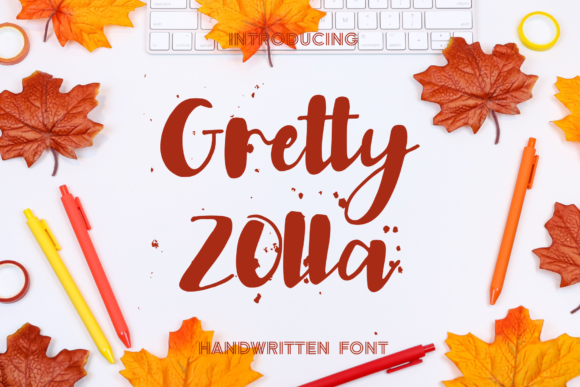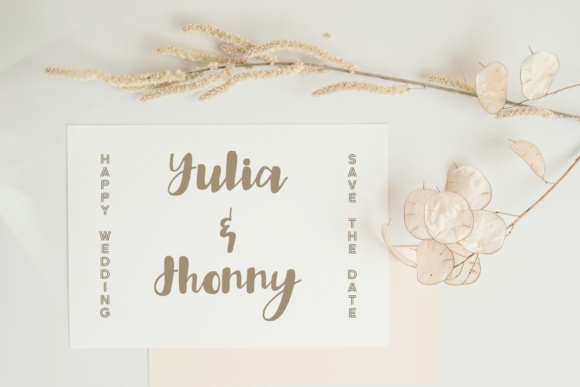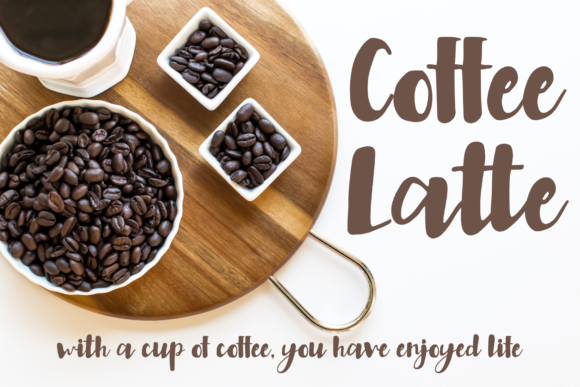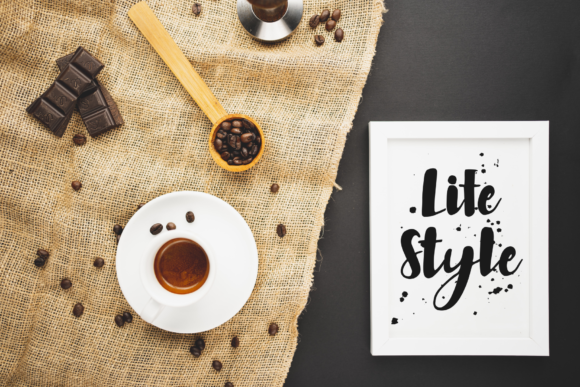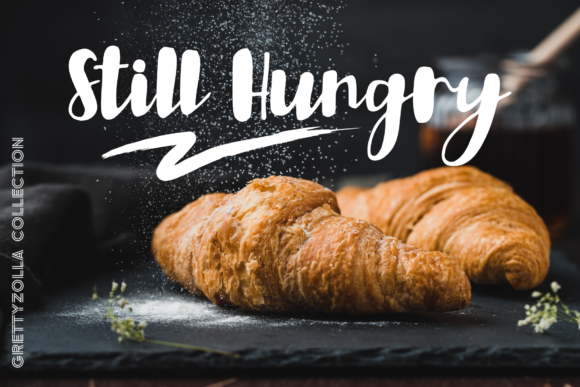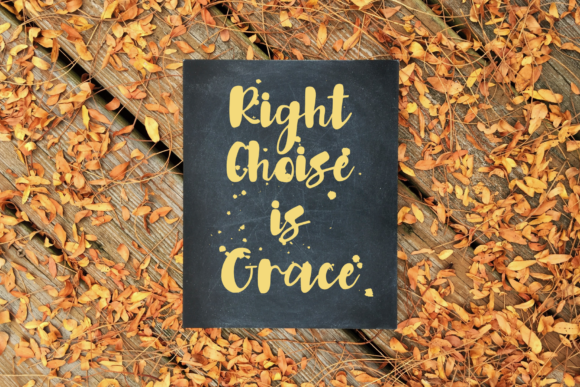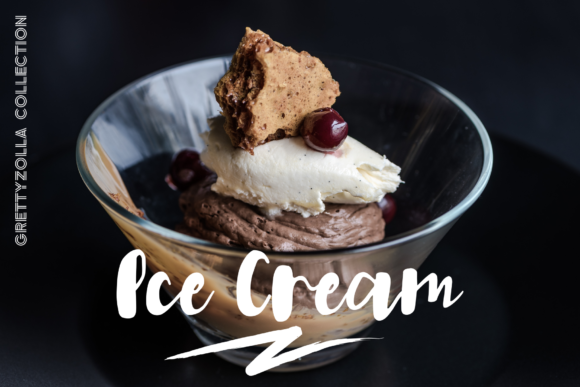
The Perfect Brushstroke for Your Next Creative Project
Have you ever been scrolling through Pinterest or Instagram and stumbled upon a beautiful handwritten design that just makes you want to create something amazing? That’s exactly what happened to me the other day when I came across a stunning wedding invitation that featured the gorgeous Gretty Zolla Font. The combination of elegance and playfulness in that single brushstroke had me hooked, and I knew I had to learn more about this incredible font.
As it turns out, Gretty Zolla Font is a trendy, chic, and adaptable handwritten font that’s perfect for adding a personal touch to any design. Whether you’re creating wedding invitations, thank you cards, or logos, this font is sure to elevate your project and make it truly special. For designers, Gretty Zolla Font is a valuable tool that offers endless creative possibilities and a unique style that’s hard to find elsewhere.
Gretty Zolla Font Key Features
- Font Family: Gretty Zolla Font is a unique script font designed to add a touch of elegance to any design. It is available in two font styles: Regular and Bold.
- Character Set: The font includes a wide range of characters, including uppercase and lowercase letters, numbers, and punctuation marks, making it suitable for various design applications.
- Unique Characteristics: The font features a distinctive, hand-drawn design with intricate details and flourishes, giving it a unique and sophisticated look.
Gretty Zolla Font Review
I recently had the chance to work with the Gretty Zolla font, and I must say it’s an interesting addition to the world of typography. Here’s my honest take on it.
- The Gretty Zolla font has a unique, quirky feel that can add a lot of character to your designs. It’s perfect for projects that need a bit of whimsy.
- The font is highly legible, even at smaller font sizes. This makes it suitable for a wide range of applications, from body text to headings.
- The font is highly customizable, with a range of weights and styles to choose from. This makes it easy to create a consistent look and feel across your design.
- The Gretty Zolla font may not be suitable for more formal or professional projects, as its quirky feel may not be suitable for these types of applications.
- The font may not be as versatile as some other fonts, as its unique style may not be suitable for all types of projects.
The Gretty Zolla font is a unique and interesting addition to the world of typography. While it may have some limitations, it’s perfect for projects that need a bit of personality and whimsy. With its high legibility and customization options, it’s a great choice for designers looking to add some character to their designs.
Use the Gretty Zolla Font for:
- Business and corporate branding materials
- Modern website and mobile app designs
- Editorial and publishing projects
- Creating visually appealing social media graphics
Remember to balance the font with other design elements to achieve a harmonious and effective visual composition.